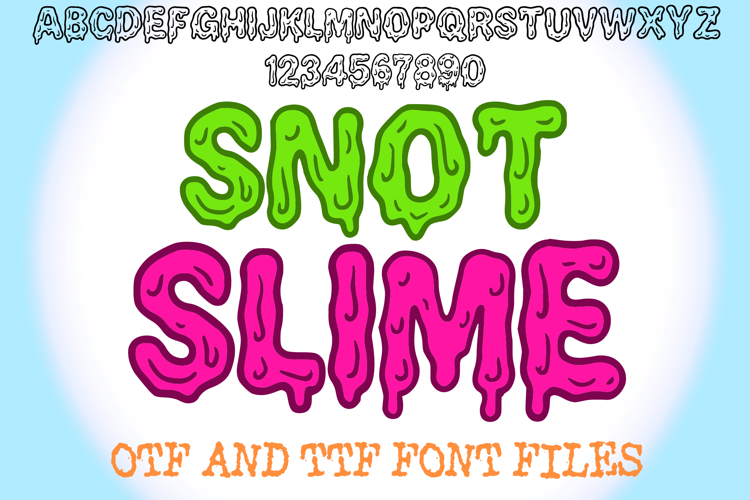
Snogville Snot | Whimsical Drippy Halloween Font
Get messy with your holiday designs using Snogville Snot, a delightfully slimy and whimsical display font! Created by Illustration Ink, this unique typeface features bouncy, hand-drawn letterforms detailed with gross yet cute dripping accents oozing from the edges of every character. It balances a spooky monster aesthetic with a playful, kid-friendly vibe, making it perfect for custom Halloween party invitations, children's slime themes, trick-or-treat bags, and vibrant classroom decorations. Crafters using Cricut and Silhouette cutting machines will find this font excellent for making standout vinyl decals, holiday t-shirts, and fun autumn event banners.